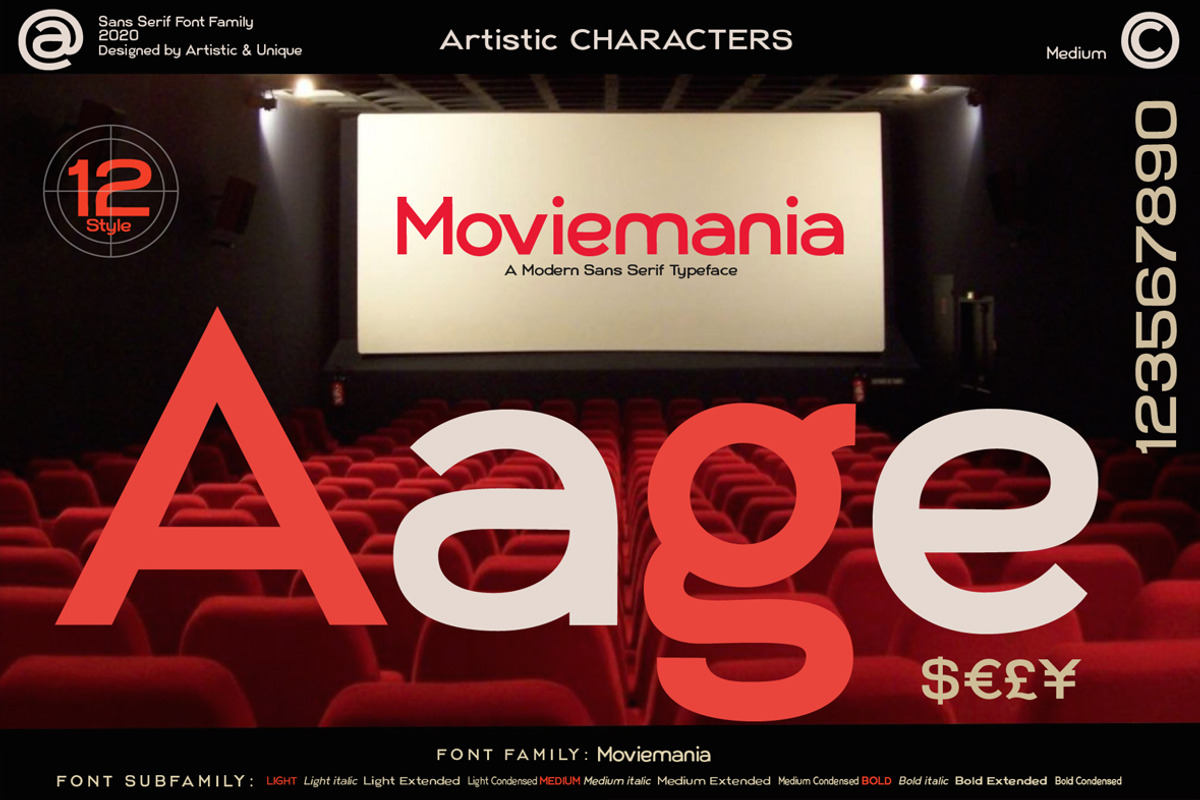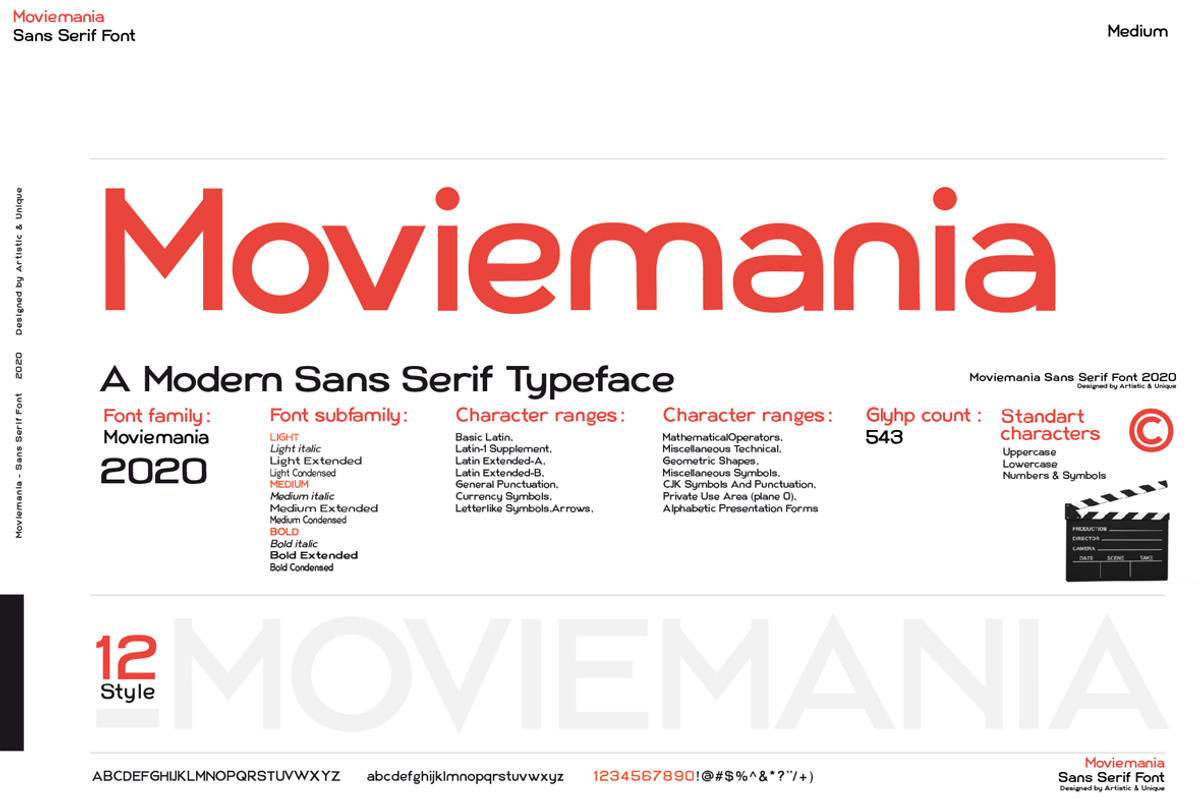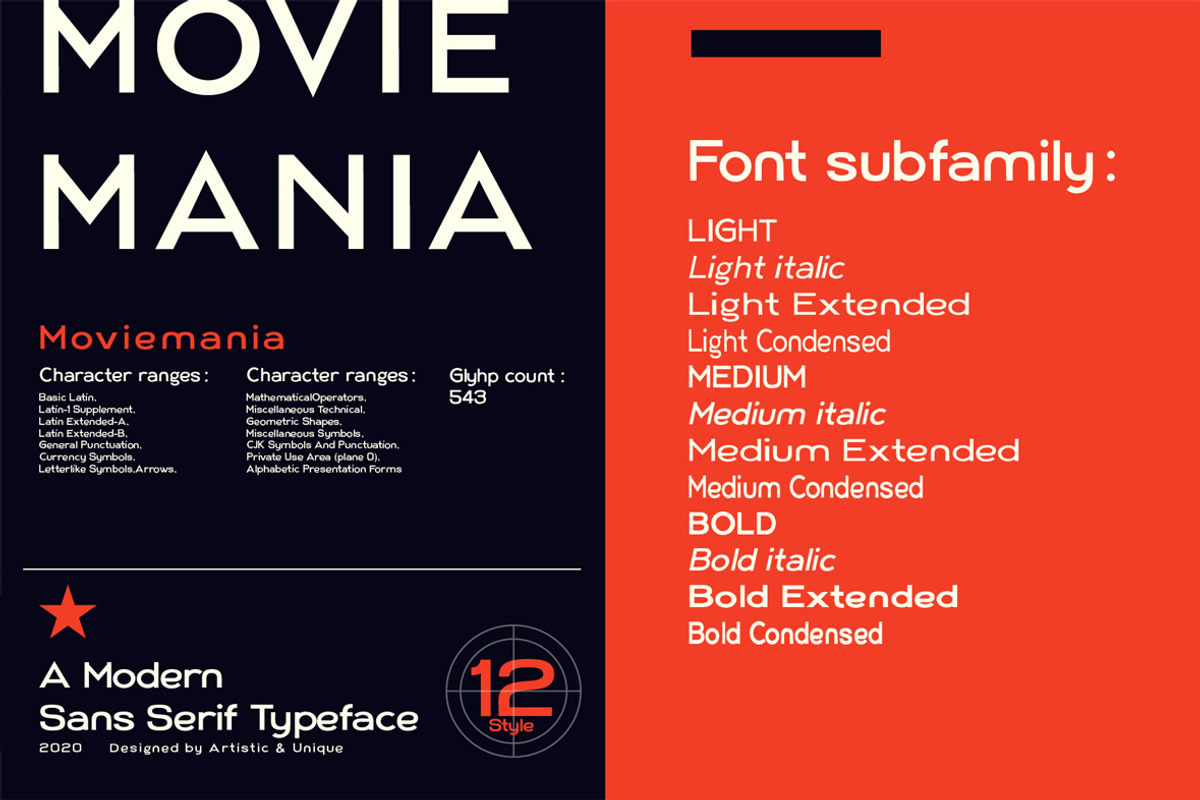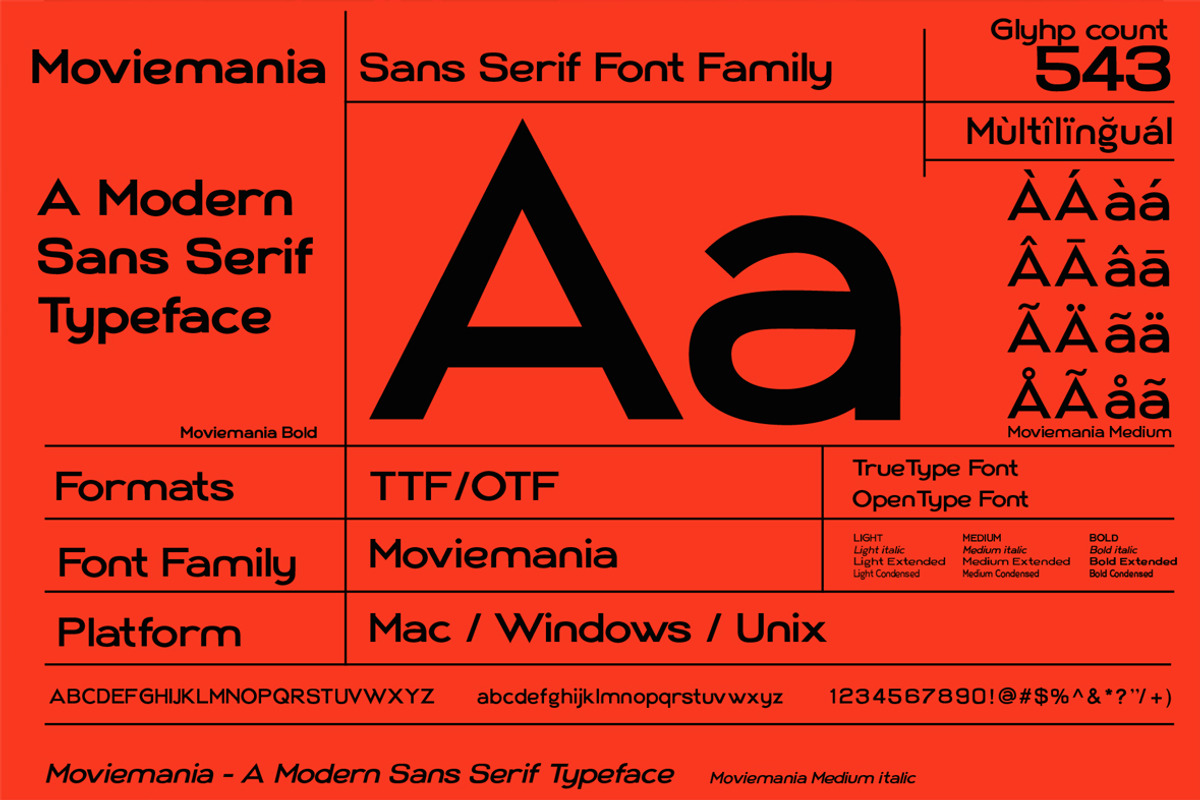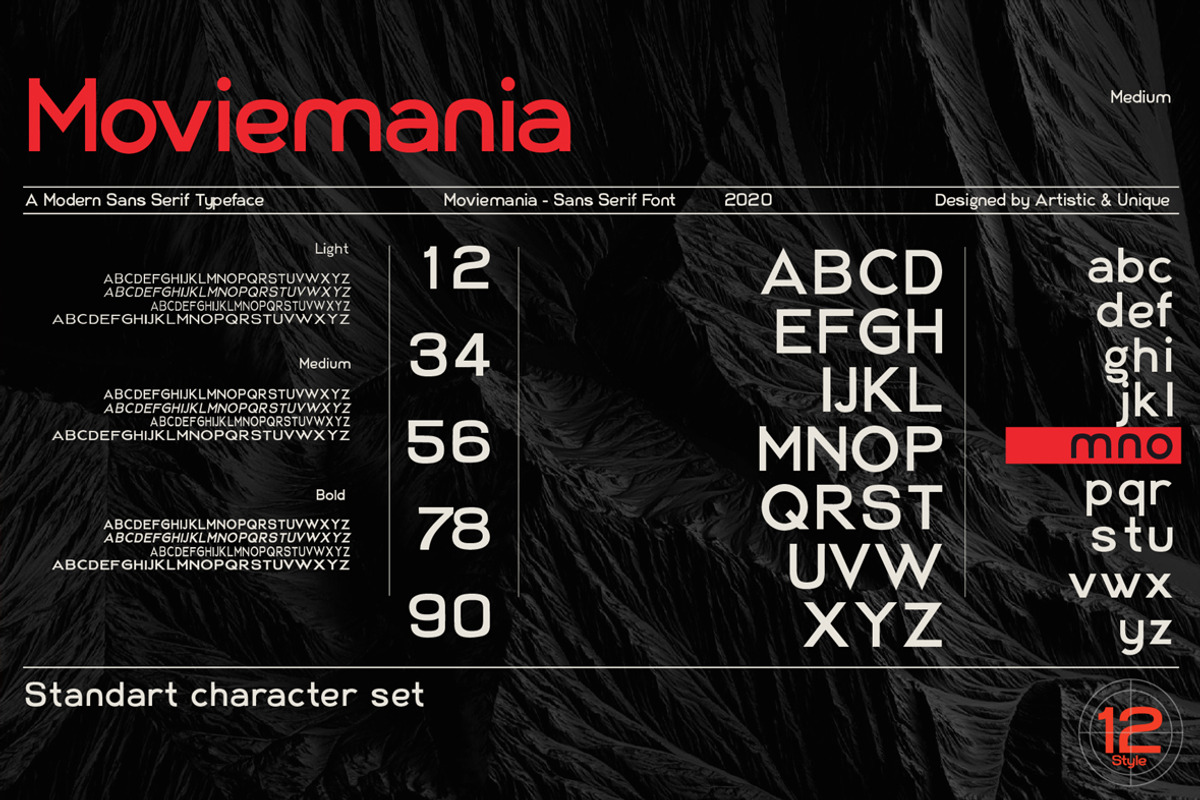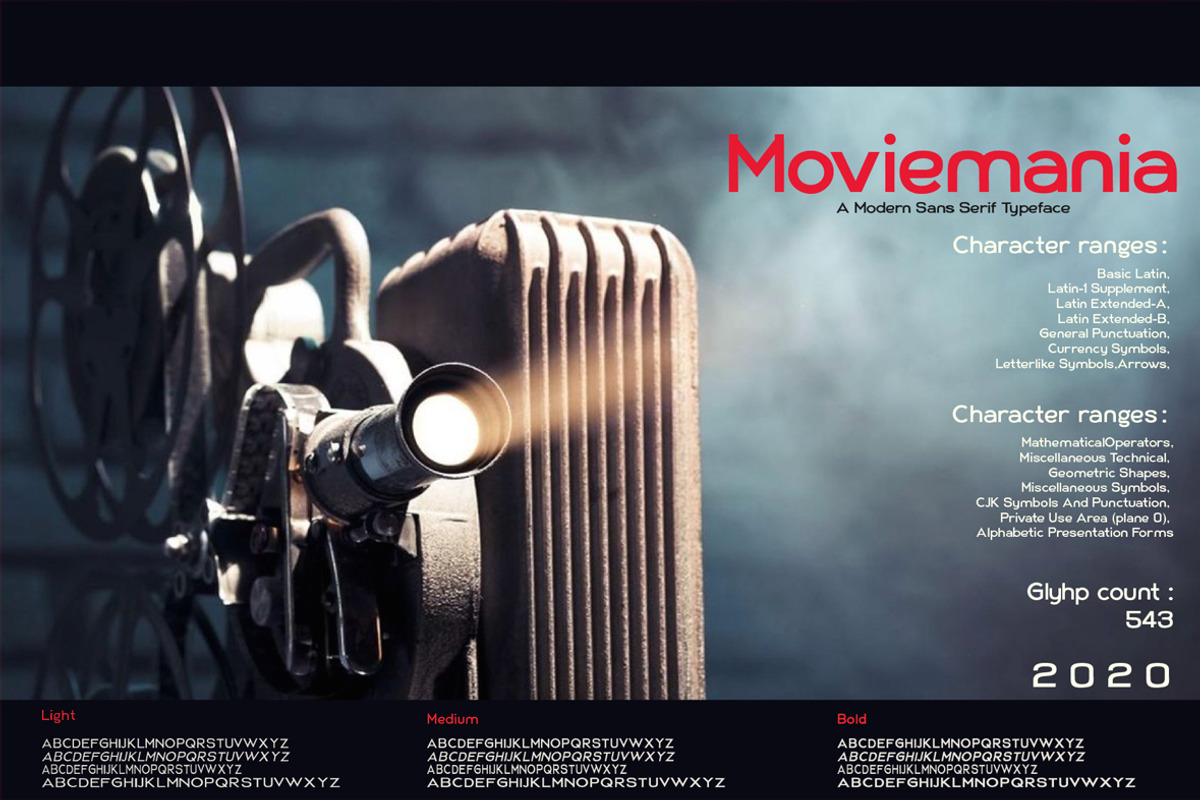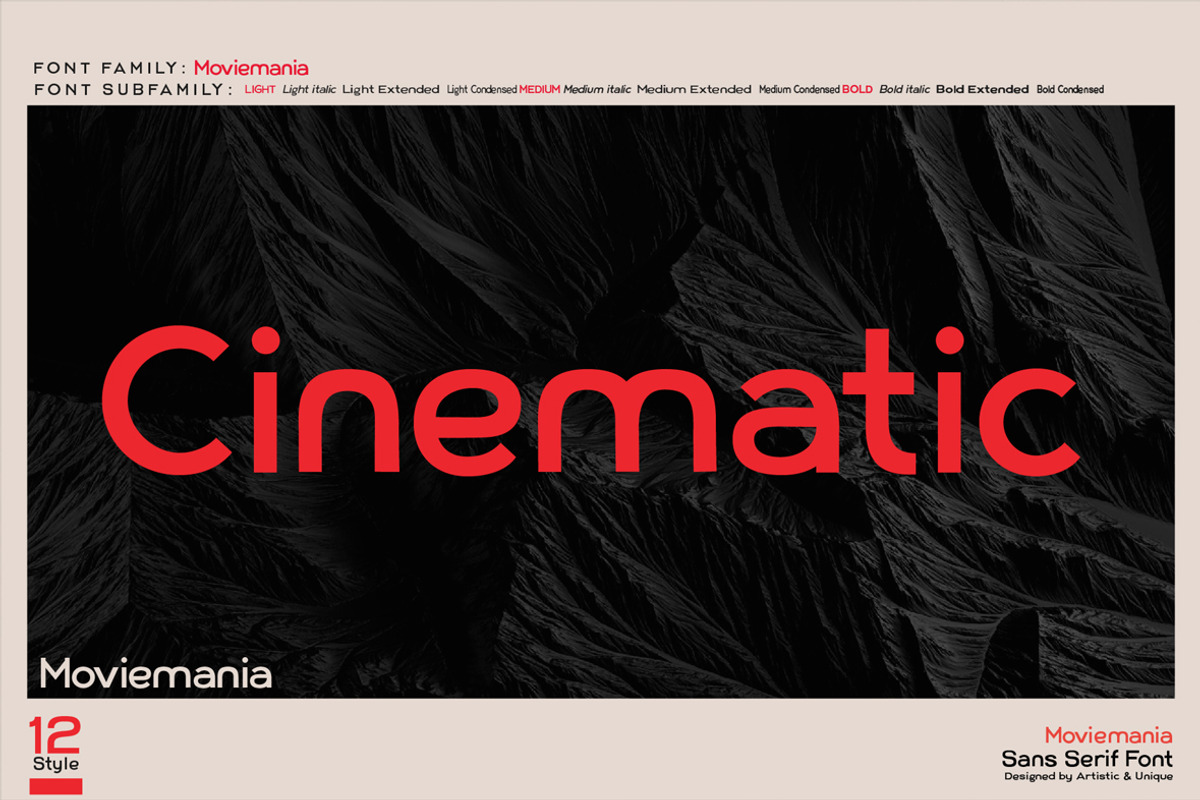
Moviemania - Sans Serif Font Family
Moviemania - Sans Serif font Family - Multilingual (2020) - 12 STYLE
Moviemania font family is a modern sans serif typeface with its sharp lines and soft turns that form its characteristic structure. It offers you two alternative concepts in your preferences with its sharp lines in uppercases and soft lines in lowercases.
It has an ideal modern structure in your preferences for branding and identity creation in today's modern world.
Absolutely perfect for movie titles, magazines, branding, branding identity, posters, logo designs, packaging designs, websites - all digital platforms and more!
This font can meet your needs in all modern and classic creative projects.
With this font you can create your unique designs.